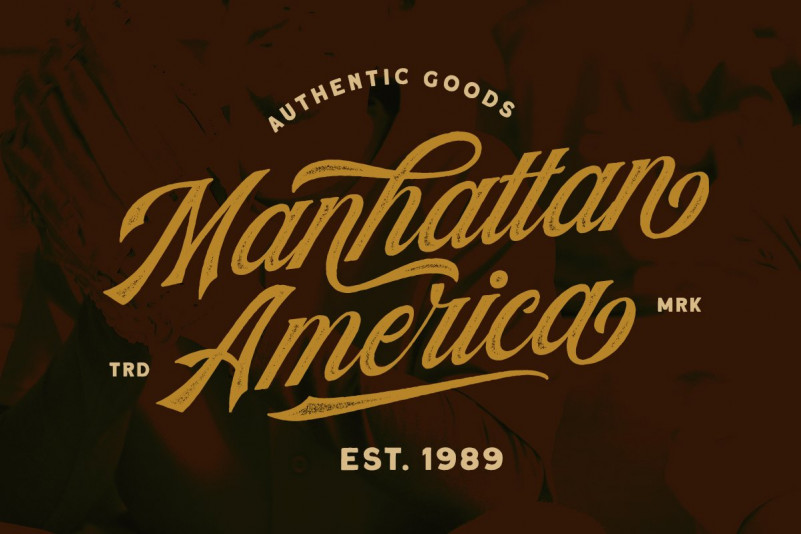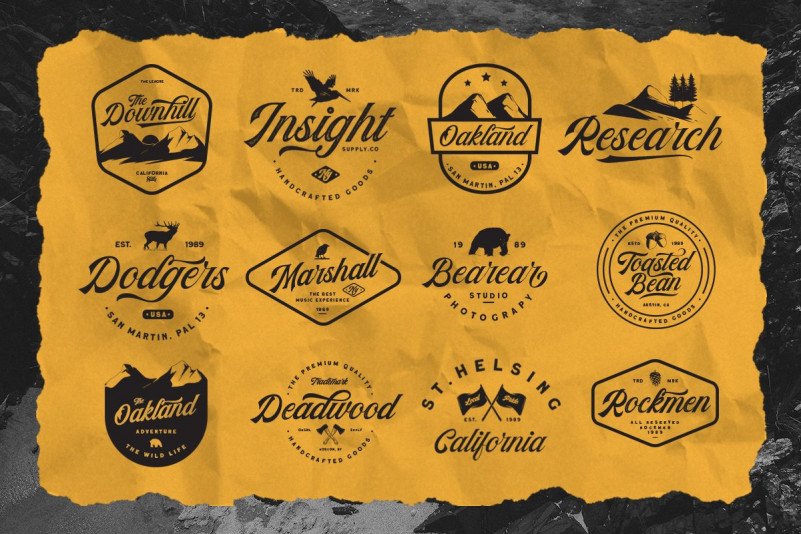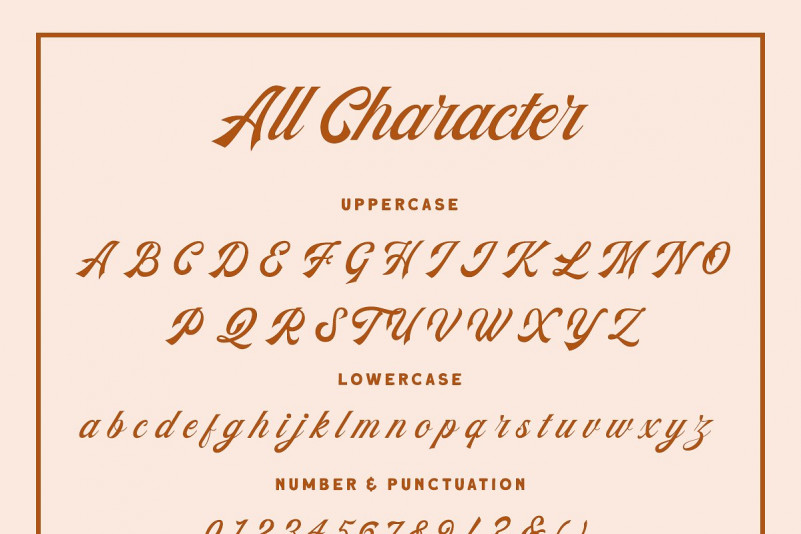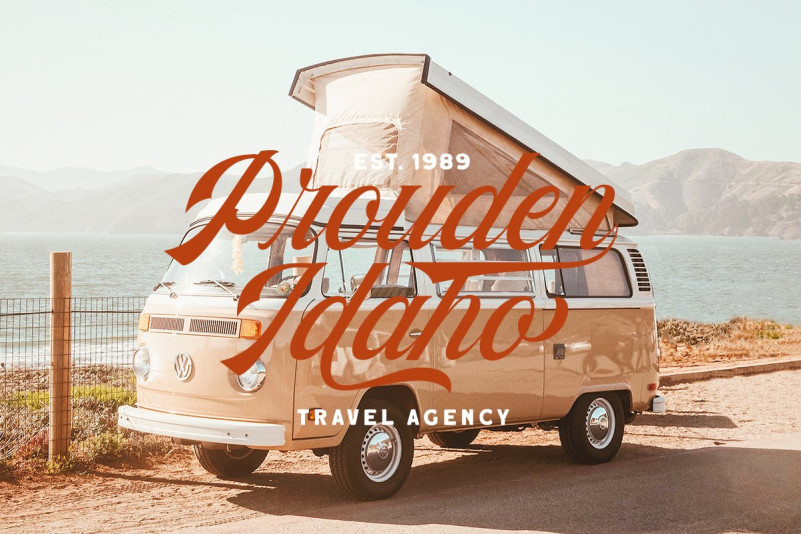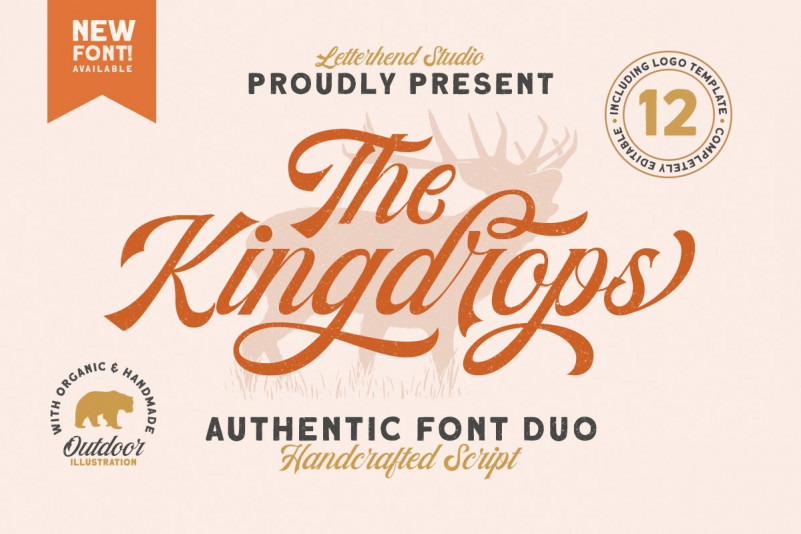
Kingdrops Calligraphy Font
Hello font lover !!! Introducing Kingdrops Font. This is a clean calligraphy script font with nice flow and soft forms. This font was designed by handwriting, and it has a modern and unique forms of calligraphy, the writing style is very natural. The Kingdrops Calligraphy. A cool font duo with 50 hand drawing objects, and 12 premade logo templates! This item contain an amazing hand lettering script typeface with sans typeface as complementary. Provided with 50 hand drawing and 12 logo templates, ready to rock! This font perfectly made to be applied especially in logo, and the other various formal forms such as invitations, labels, logos, magazines, books, greeting / wedding cards, packaging, fashion, make up, stationery, novels, labels or any type of advertising purpose.